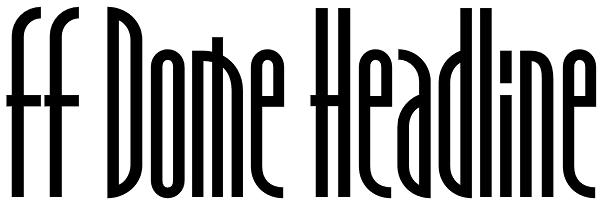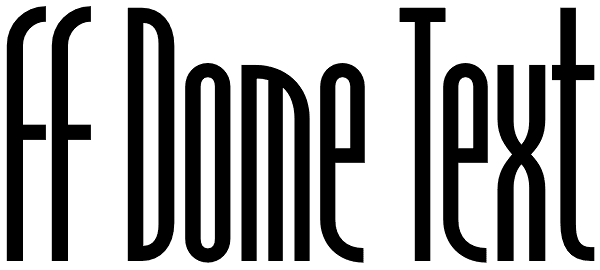
FF Dome
British type designer Neville Brody created this display FontFont in 1993. The family contains 3 weights and is ideally suited for advertising and packaging, film and tv, poster and billboards, software and gaming as well as sports. FF Dome provides...
FF Dome Headline
FF Dome Text